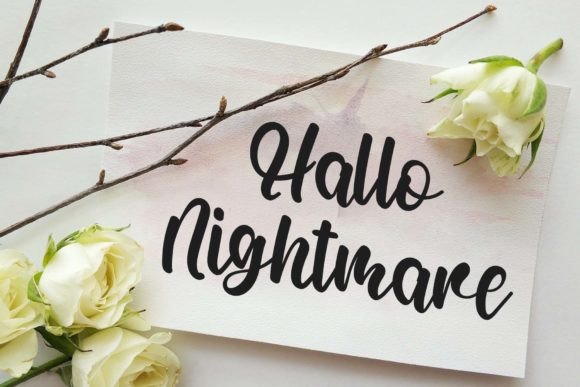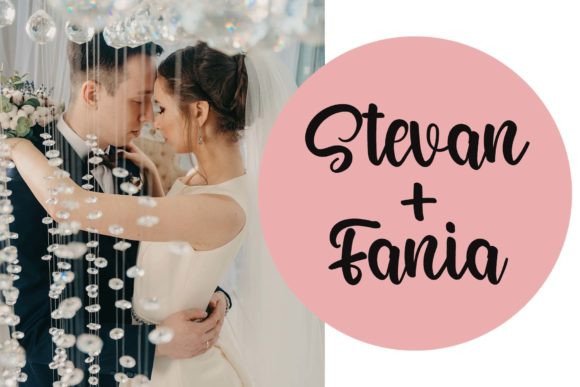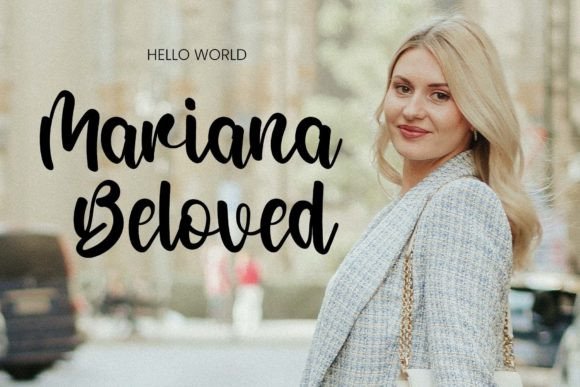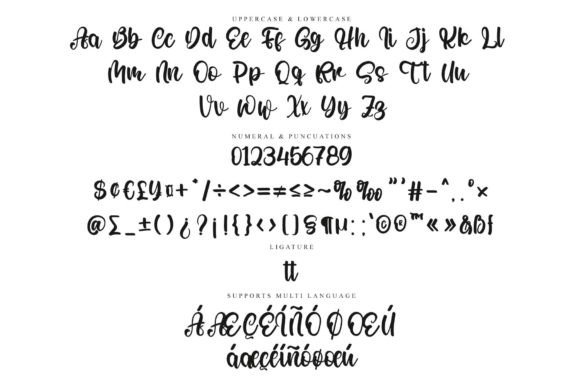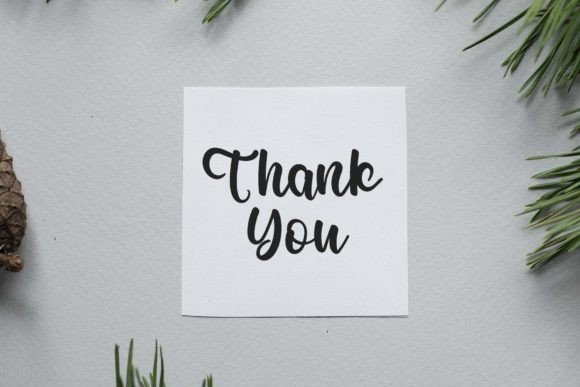
**Haunted House Font: The Magical Elegance for Your Creative Designs**
Introducing Haunted House, a captivating handwritten font meticulously crafted to infuse your designs with a touch of enchanting elegance. This font isn’t just a typeface; it’s a magical work of art that will elevate your creative ideas into true masterpieces. Here’s why Haunted House stands out:
**Whimsical Elegance:** Haunted House font exudes an air of whimsical elegance, making it ideal for a wide range of design projects that require a magical touch.
**Artful Precision:** The font’s artful precision and detailed craftsmanship ensure your designs are nothing short of magnificent.
**Versatile Application:** Haunted House seamlessly adapts to various design applications, from Instagram posts to calligraphy scripts for DIY projects, adding a touch of enchantment to your creations.
**Visual Enchantment:** Your designs will come to life with Haunted House’s visually enchanting appeal. Its exquisitely designed characters and graceful curves create a captivating visual experience.
**Timeless Charm:** Haunted House possesses a timeless charm, ensuring its relevance and value in your design toolkit for years to come.
**Wide Range of Uses:** Whether you’re working on social media graphics, branding, invitations, or personal projects, Haunted House effortlessly fits into diverse design contexts.
**Crafted for Excellence:** This font is meticulously crafted to ensure your designs convey a sense of excellence, captivating your audience with its artistic magic.
**Engage and Mesmerize:** Haunted House empowers you to engage and mesmerize your audience with its elegance and artistry, leaving an indelible impression.
**Perfect for Special Moments:** Whether it’s a special event, a DIY project, or creative branding, Haunted House adds a magical touch to your work.
**Exquisite Flourishes:** Haunted House includes exquisite flourishes and enchanting swashes that enable you to create beautifully embellished typography, elevating your designs to a new level of charm.
**Create Spellbinding Typography:** Utilize Haunted House to craft spellbinding typography that enhances your designs, making them truly enchanting.
**Elevate Your Branding:** Elevate your branding with Haunted House, as it brings a magical and premium quality to your projects.
**Unique and Captivating:** Haunted House’s uniqueness sets it apart from ordinary fonts, making it a captivating choice for your creative pursuits.
**Craftsmanship Matters:** Every character in Haunted House reflects precision and artistry, ensuring your designs radiate quality and magical elegance.
**Enhance Any Creation:** Regardless of the theme or topic, Haunted House has the power to enhance any creation and infuse it with enchantment.
**Elegance and Enchantment Combined:** Haunted House effortlessly blends elegance and enchantment, creating a font that’s both visually captivating and artistically captivating.
**Experience Magic with Haunted House:** Immerse yourself in the magic and elegance of Haunted House as you craft designs that capture hearts and ignite imaginations. It’s the font that takes your work to a new realm of creativity.
**Let Haunted House Inspire:** Let Haunted House be the font that inspires your creations, adding a dash of magical beauty and exquisite artistry.
**Unleash Your Imagination:** Unleash your imagination with Haunted House, the font that transforms ordinary projects into enchanting works of art.